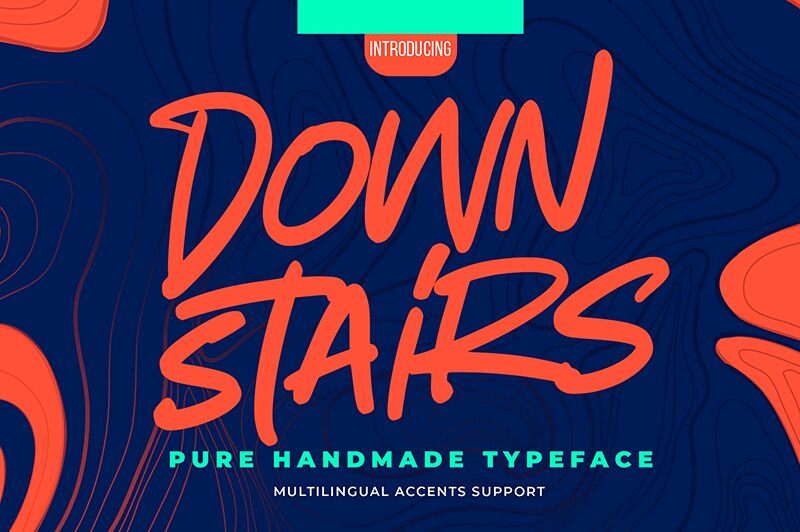
Downstairs
Downstairs by Gassstype stands out as a semi-light, pure handmade typeface, brimming with authentic style and dramatic movement that captures the essence of casual rapidity. This font breathes life into creative endeavors with its modern, authentic, and fun vibe. It's an ideal match for designers looking to infuse their projects—from labels to greeting cards—with a touch of natural elegance and personal flair.
The versatility of Downstairs shines across diverse mediums such as branding, packaging, websites, and photography overlays. Its suitability extends to embellishing signs, scrapbooking ventures, or adorning tags with its handwritten charm. Enhanced by ligature glyphs accessible via the OpenType panel, Downstairs elevates designs by lending them a unique and sophisticated character that effortlessly resonates with audiences seeking a blend of contemporary finesse and heartfelt warmth.